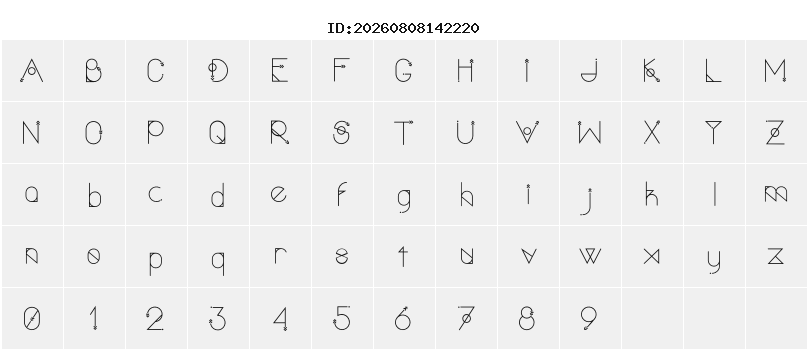
• Designer: Katharine Howard
About Polar Vertex.otf
Polar Vertex.otf is a modern, elegant sans-serif font designed for ultimate readability and visual harmony. Perfect for branding, headlines, web design, and print materials.